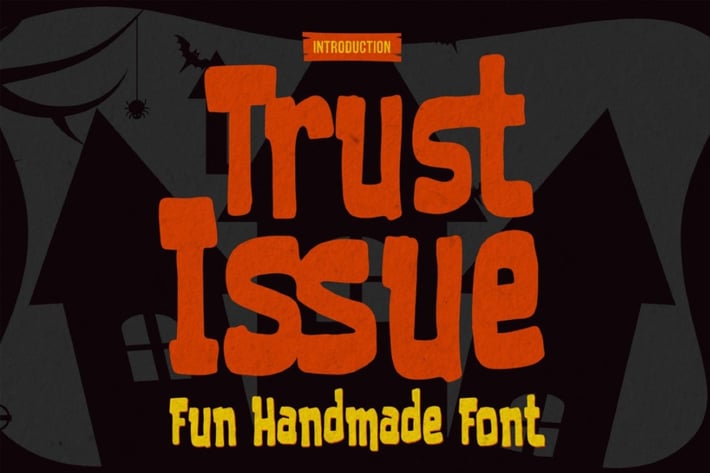
Trust Issue - Fun Handmade Font
Trust Issue - Natural Fun Handmade Font Handwritten Allcaps Font with a natural style and dramatic movement. Crafted manually with love and passion, This font is great for your next creative project such as logos, printed quotes, invitations, cards, product packaging, headers, Logotype, Letterhead, Poster, Label, and etc.